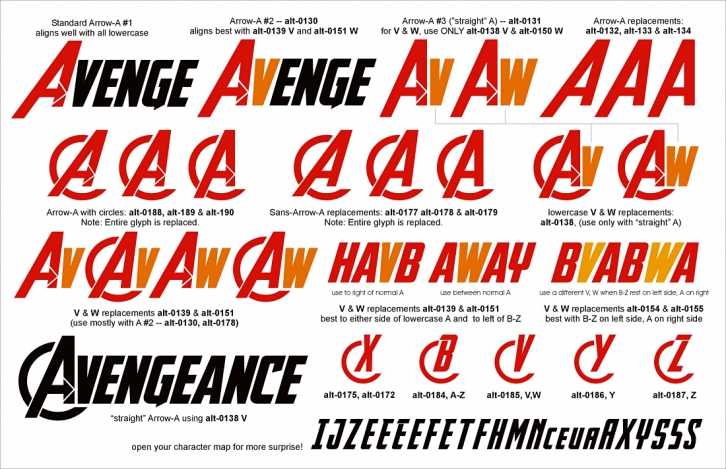
Assembled for the first time anywhere with Avengeance. The Avengers font.
UPDATE: be sure to visit my image gallery to obtain a keymap that will help you assemble your team logo by keeping all those impossible letter combinations neatly aligned and perfectly straight.